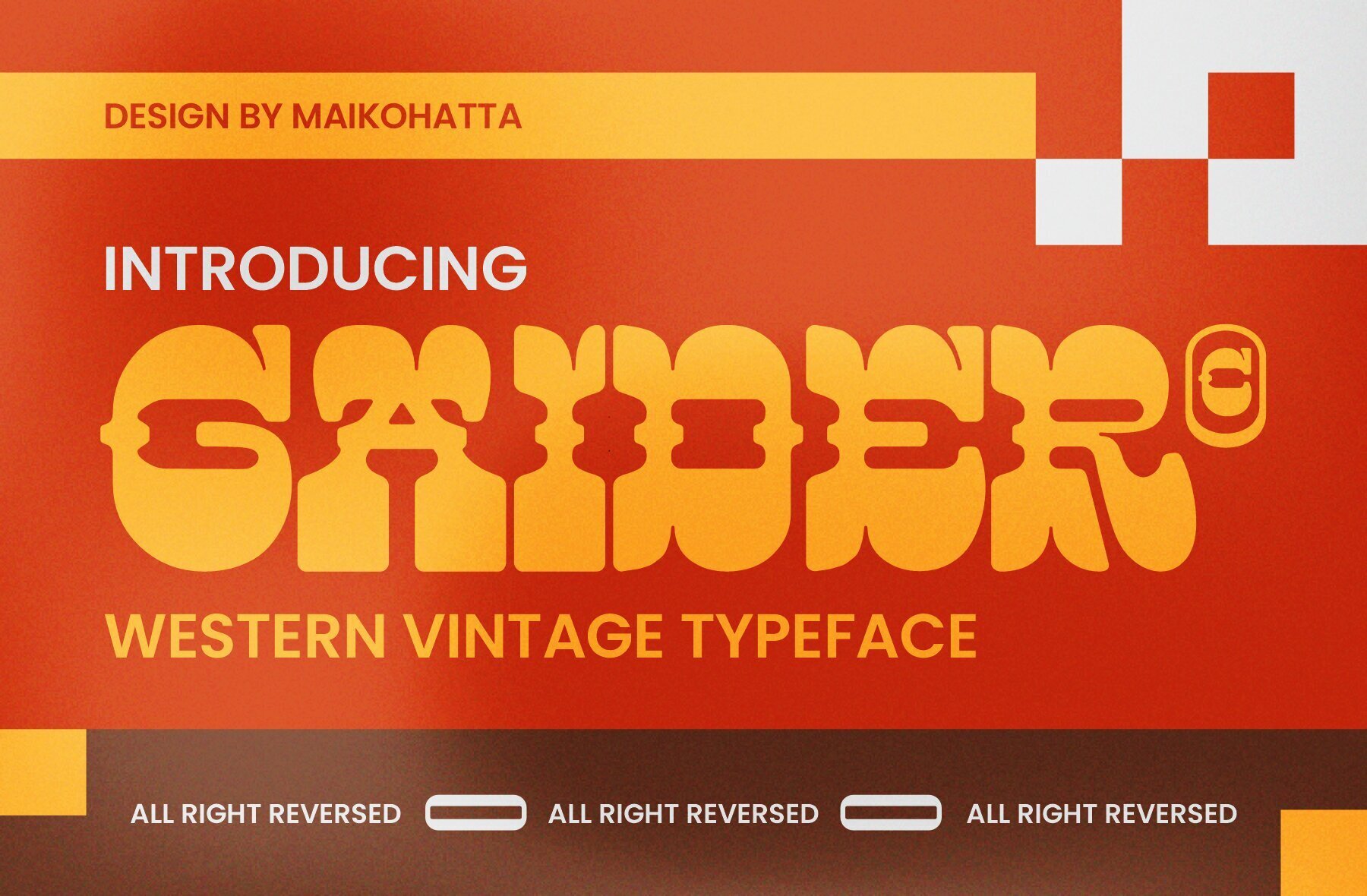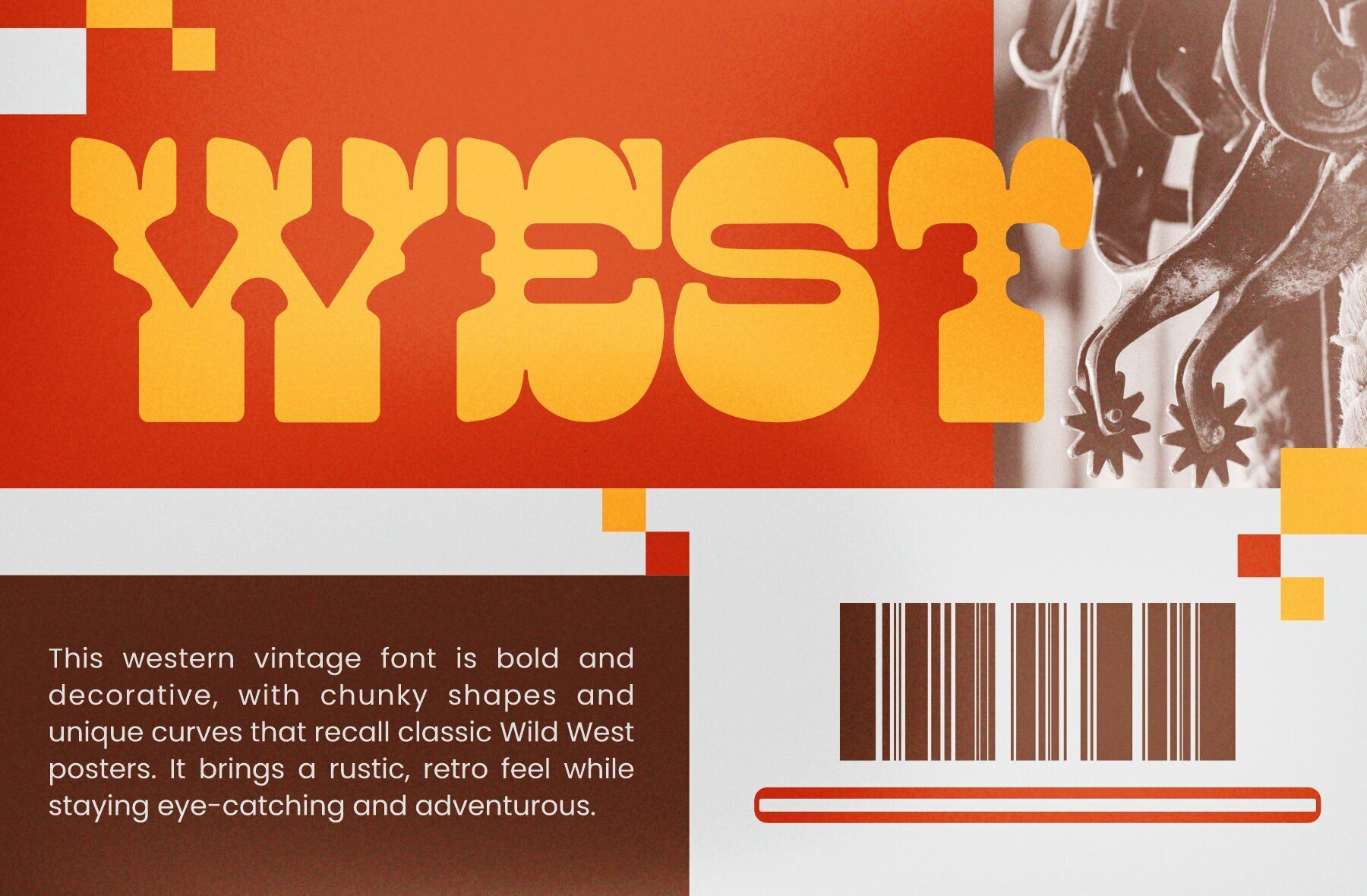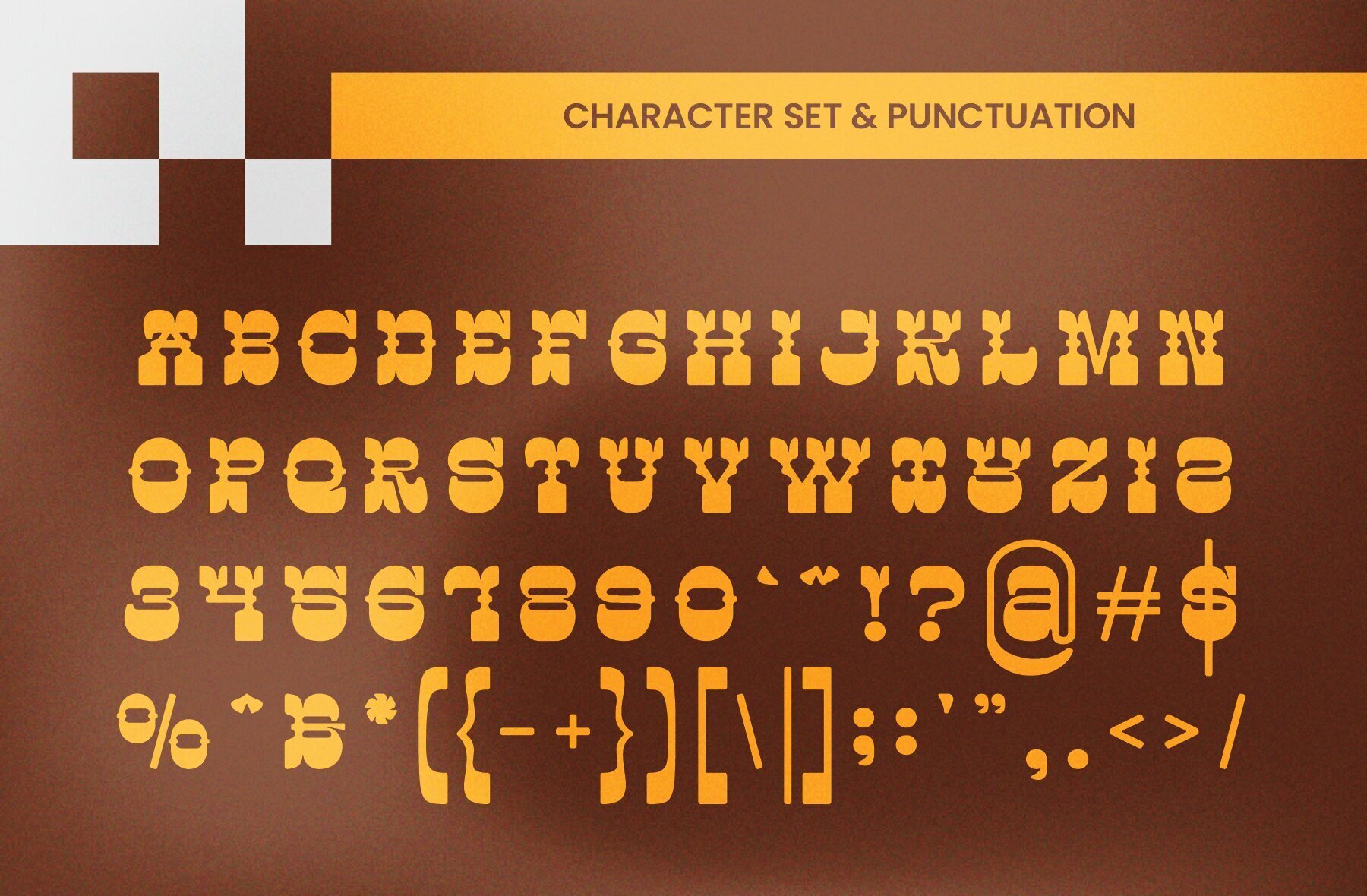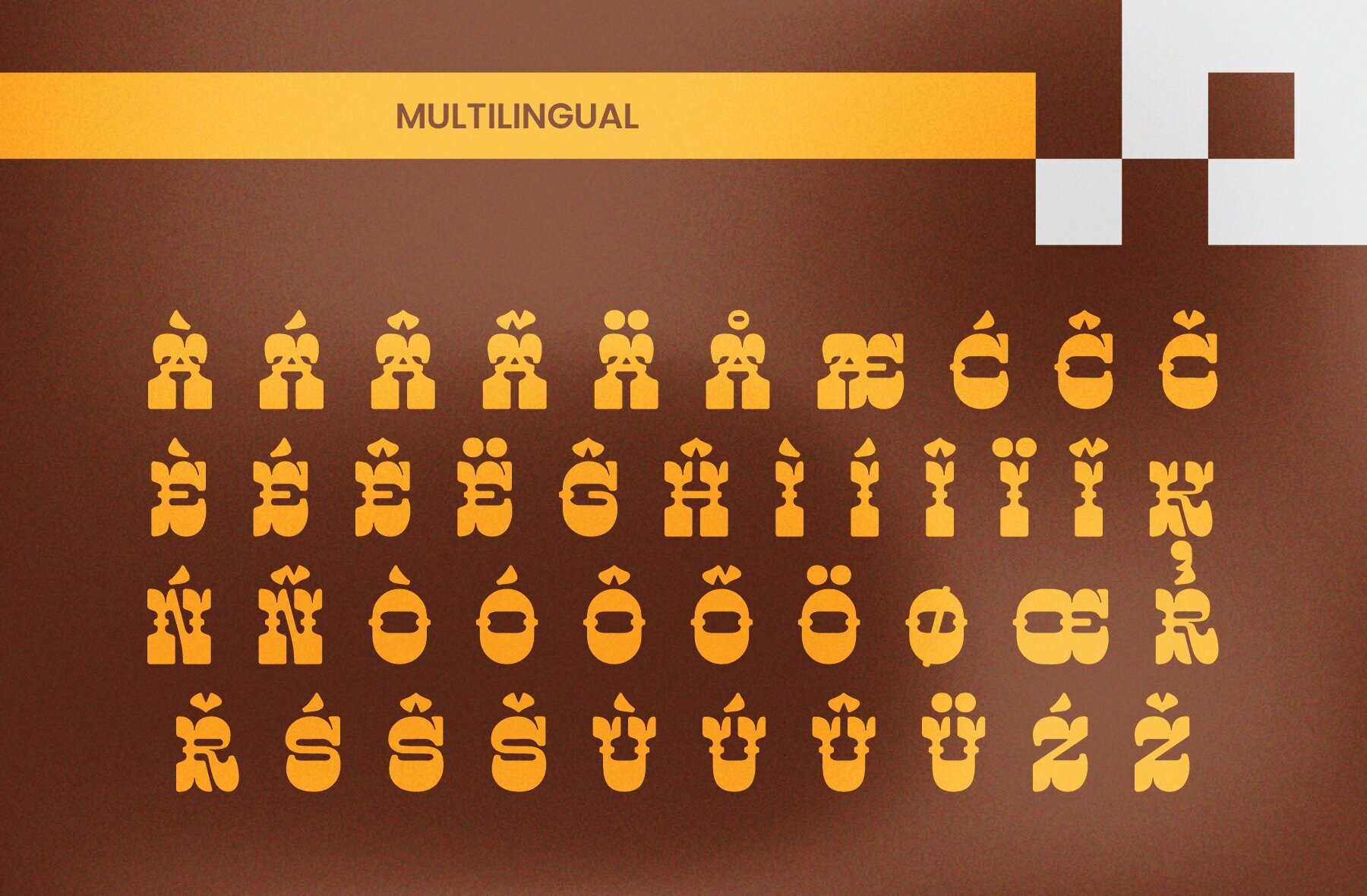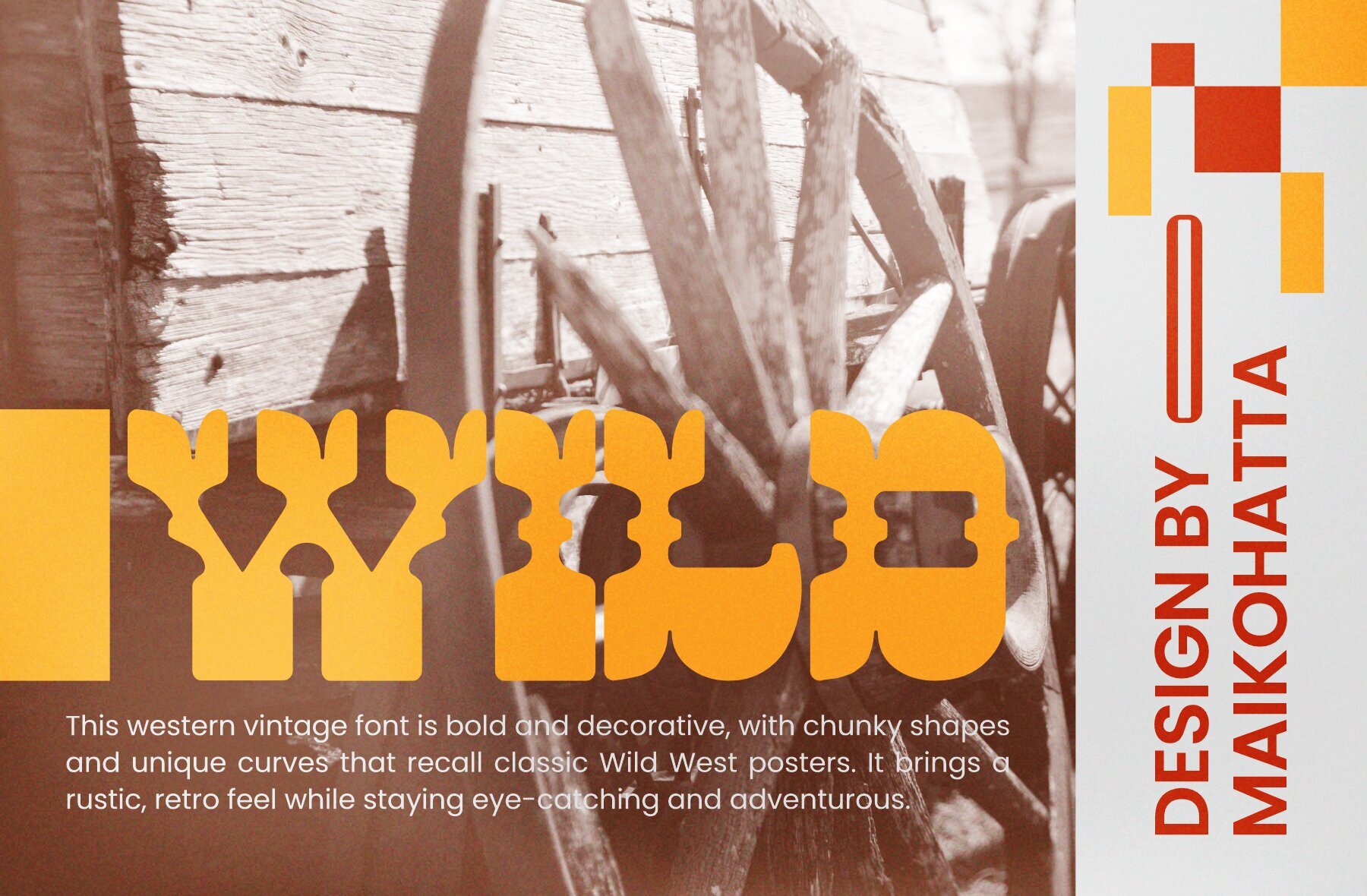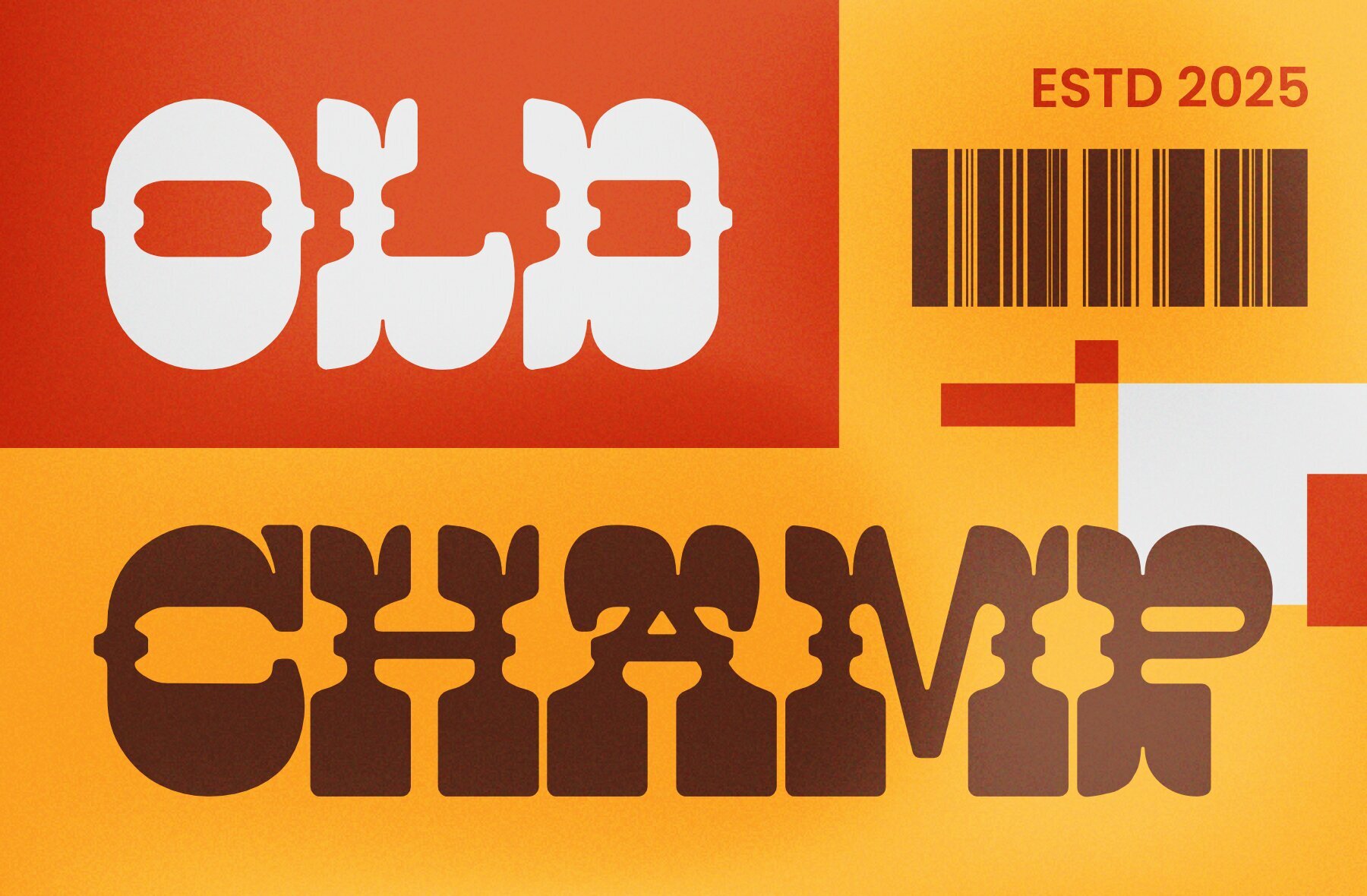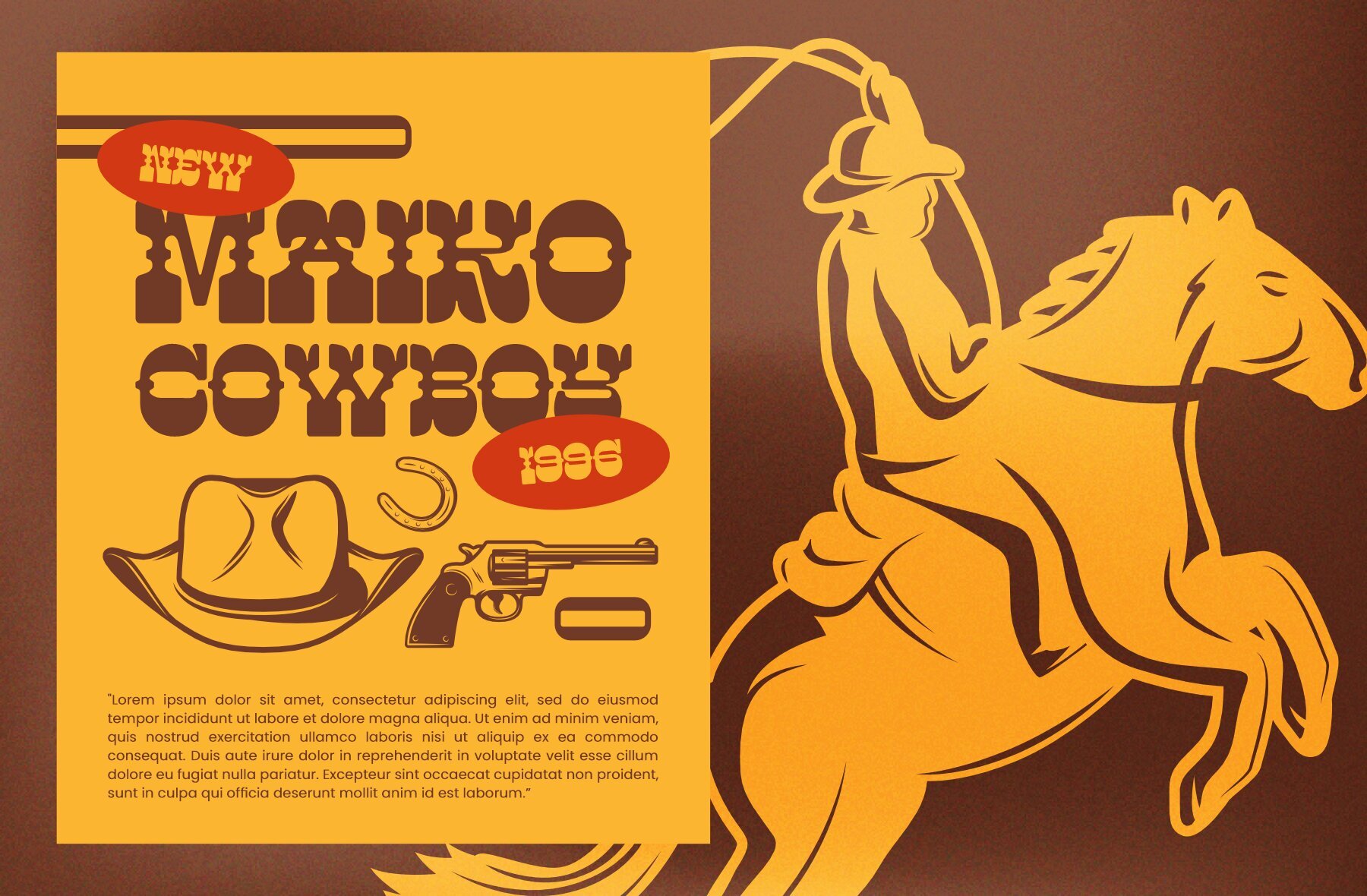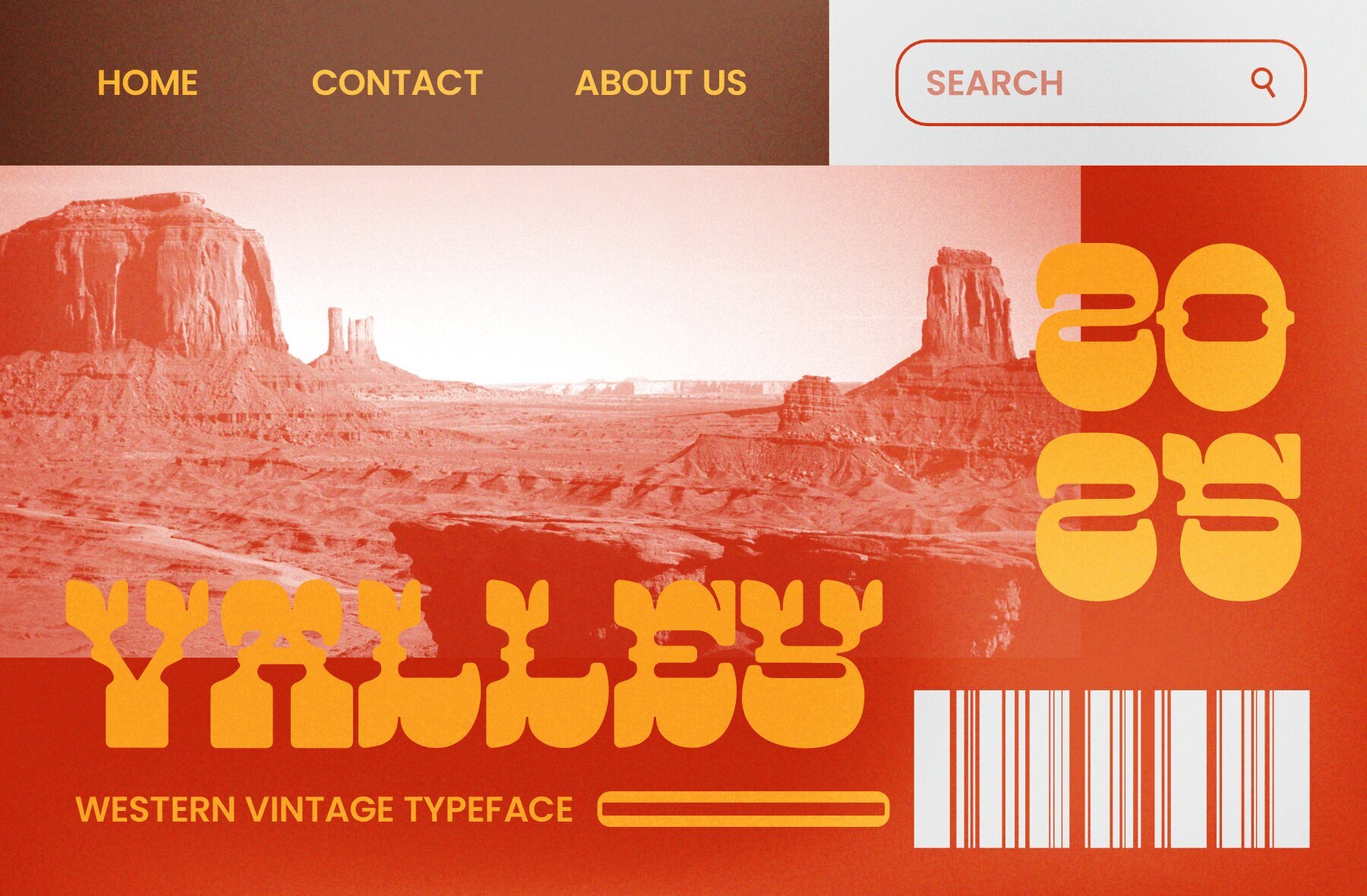
Gaider Font
GAIDER
Gaider presents an amalgamation of boldness and uniqueness, drawing inspiration from vintage western styles while maintaining a contemporary touch. With its thick curves and playful cuts, this typeface exudes a retro vibe that brings both nostalgia and freshness. Gaider is an ideal choice for projects that require a strong and eye-catching personality. The western character and stylish vintage flair of Gaider ensure that your message stands out vividly.Gaider: Bold Display Font With a Retro Western Flair